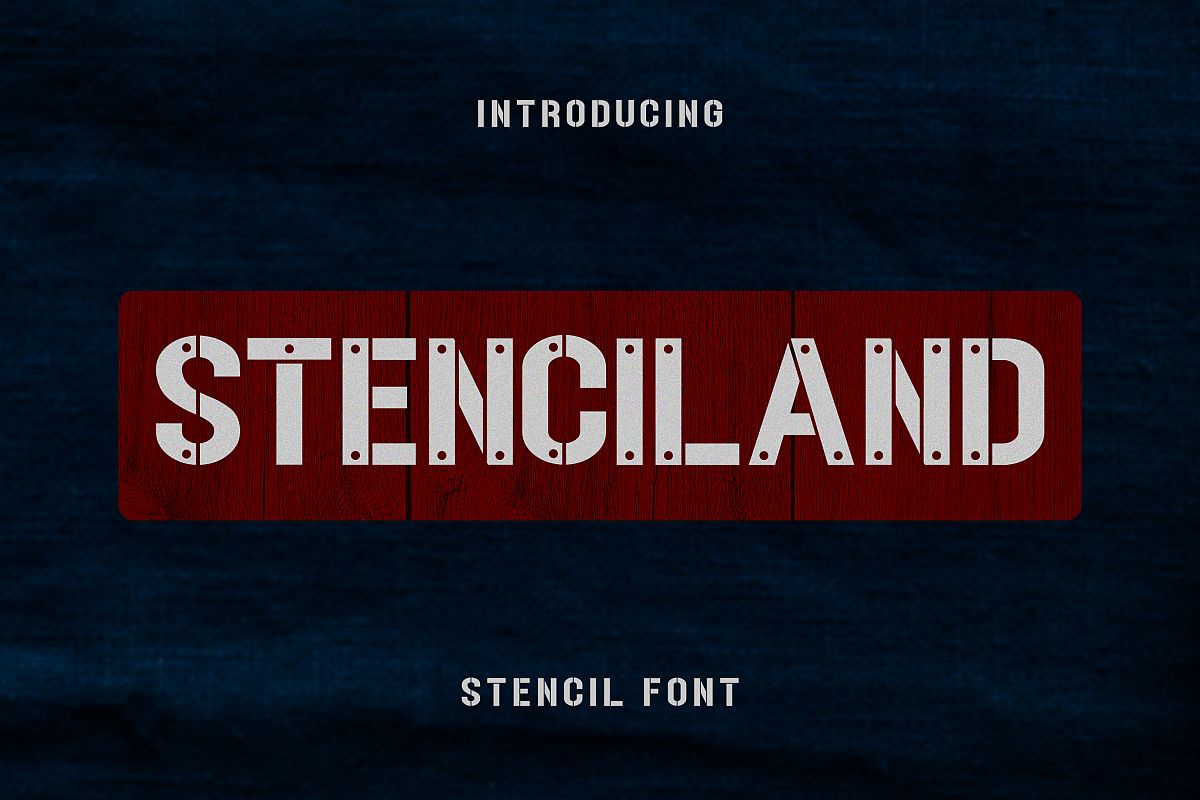
STENCILAND
STECILAN
STENCILAND is AWESOME STENCIL FONT. This font is perfect for logo, quote, poster, playful lettering, for clothing, or any design projects.